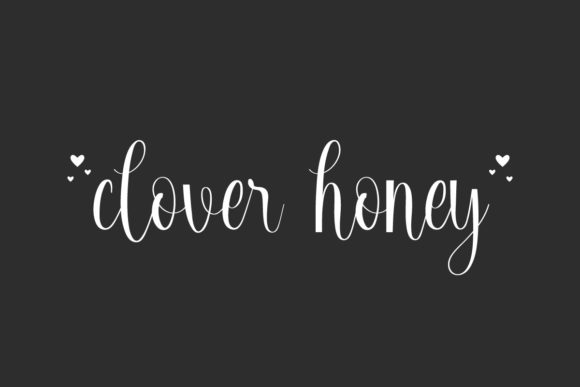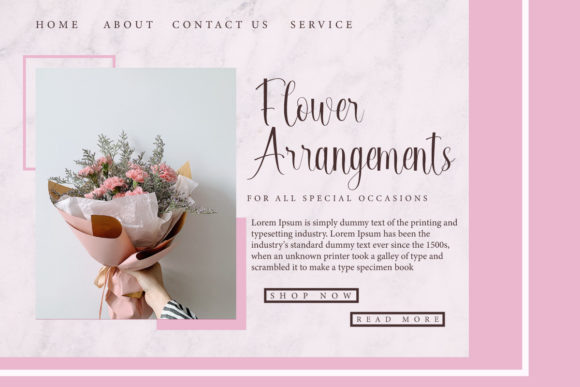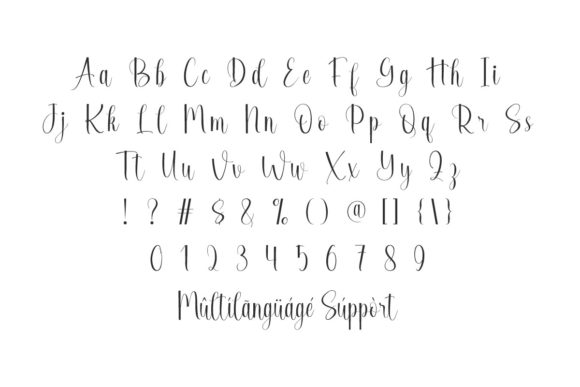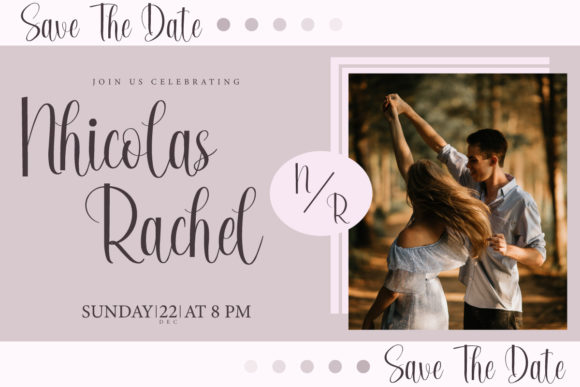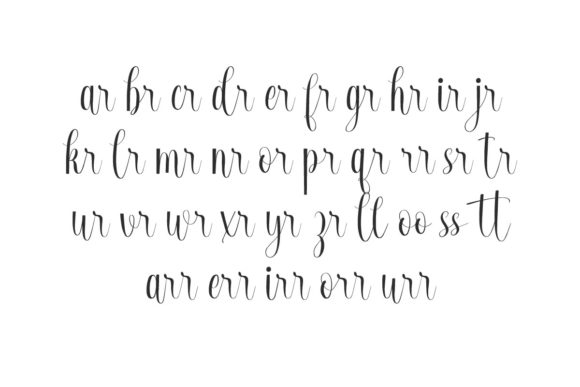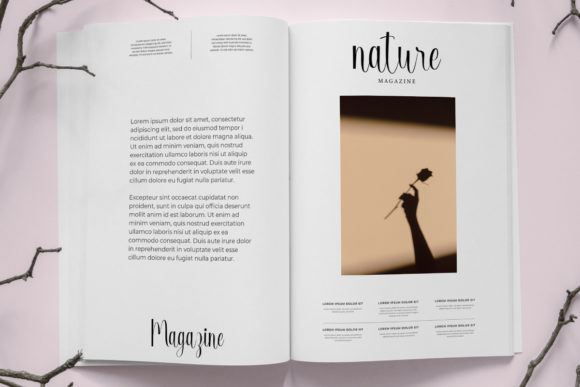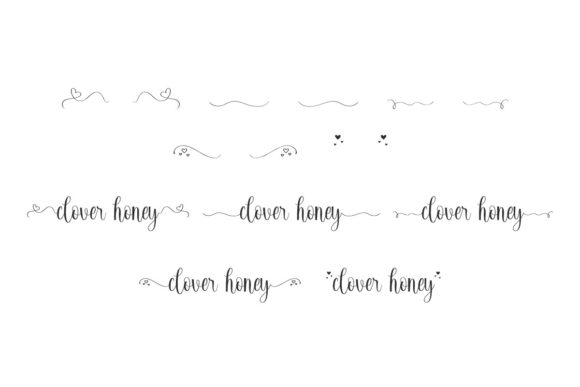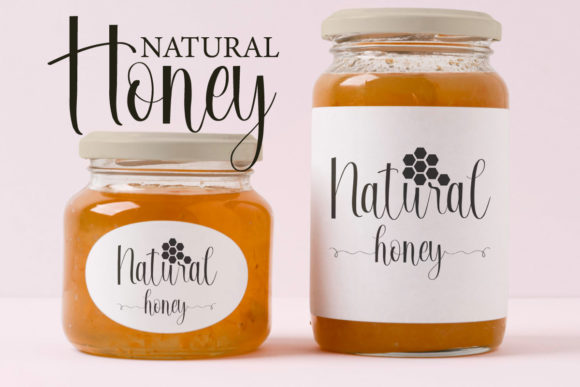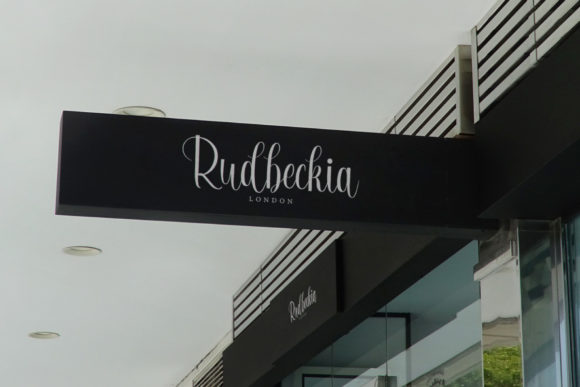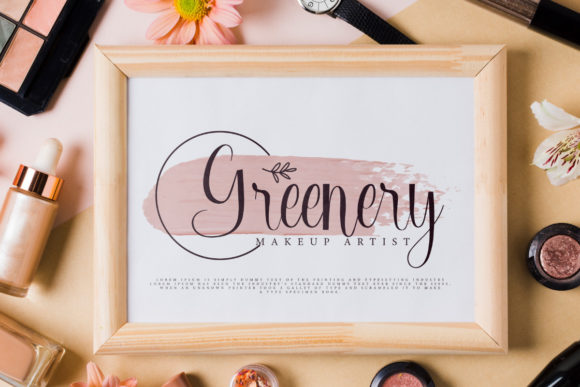
Clover Honey Font
About Clover Honey Font
Clover Honey is a delicate and fashionable script font that exudes sophistication and charm. Tailored for a range of branding projects, including logos, t-shirt printing, and creative products, this font adds a touch of elegance to your designs. Its versatility ensures that it looks extraordinary in various contexts, allowing you to create visually stunning and refined aesthetics.
The delicate strokes and fashionable design of Clover Honey make it well-suited for projects that demand a luxurious and graceful touch. Whether applied to high-end logos, stylish t-shirt prints, or other creative products, this font brings a level of sophistication that captures attention and leaves a lasting impression.
The PUA encoding in Clover Honey enhances its user-friendliness, providing easy access to a wide array of glyphs and swashes. This feature empowers designers to customize and personalize their projects effortlessly, adding unique touches to their designs.
In summary, Clover Honey is more than just a font; it’s a delicate and fashionable script typeface that enhances the visual appeal of your branding projects. Its versatility ensures exceptional results across various contexts, and the PUA encoding makes it user-friendly for designers. With Clover Honey, your creative endeavors are elevated with a touch of elegance and refinement.